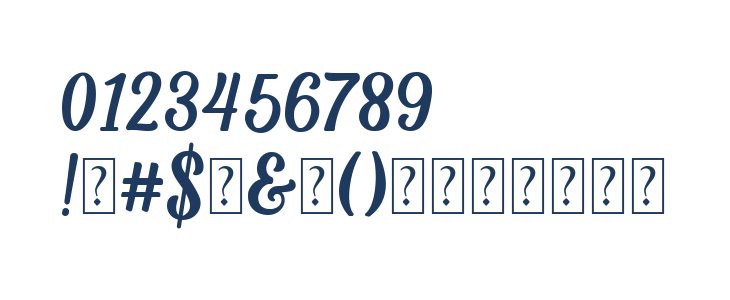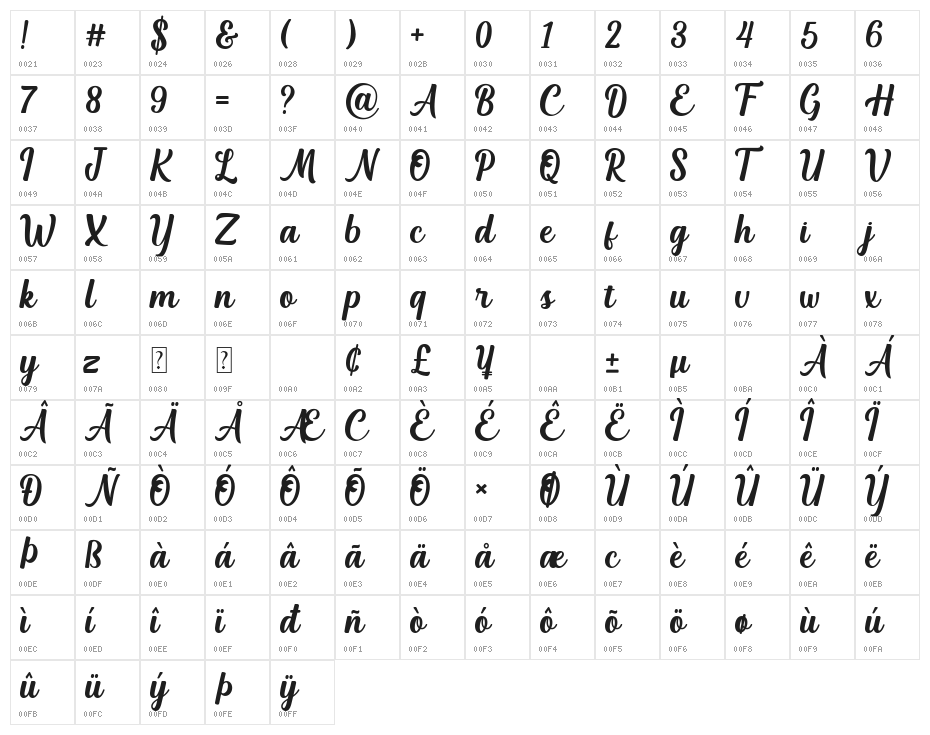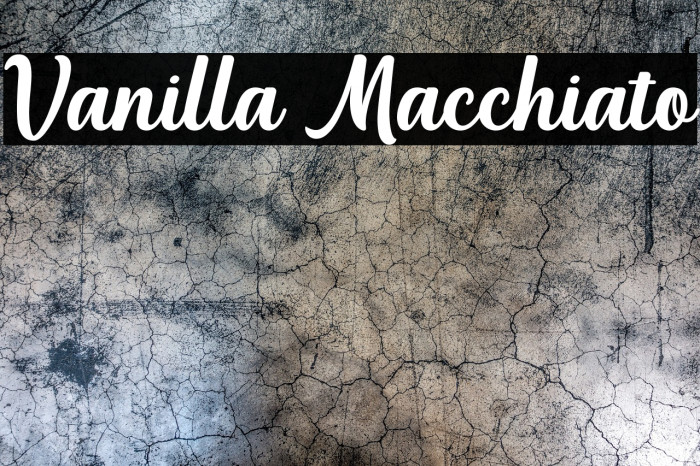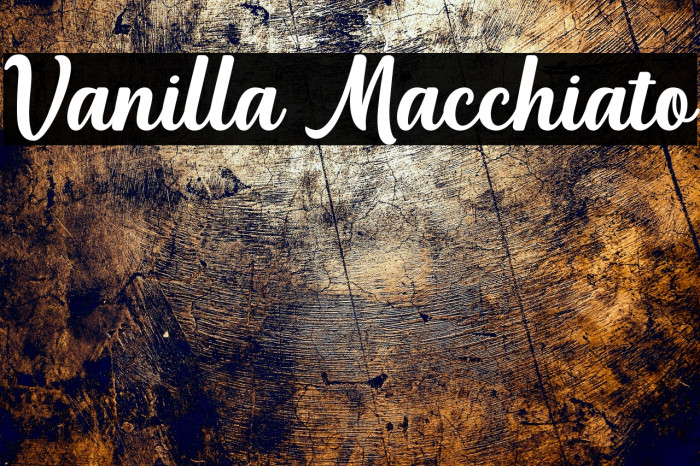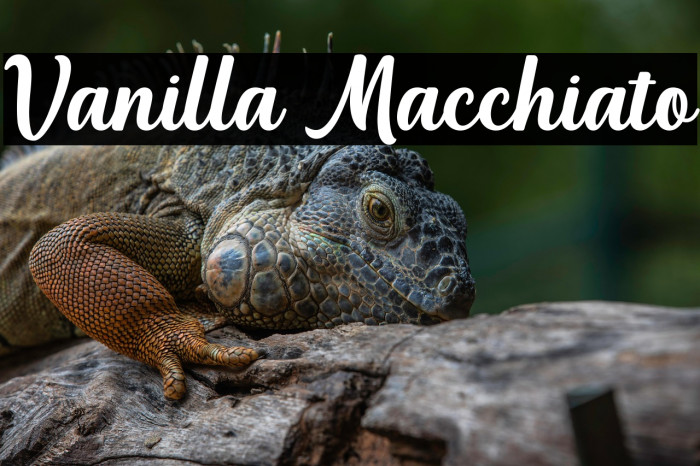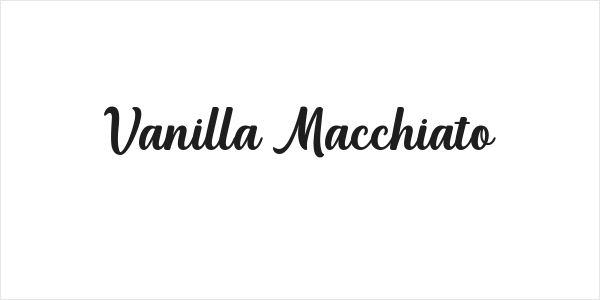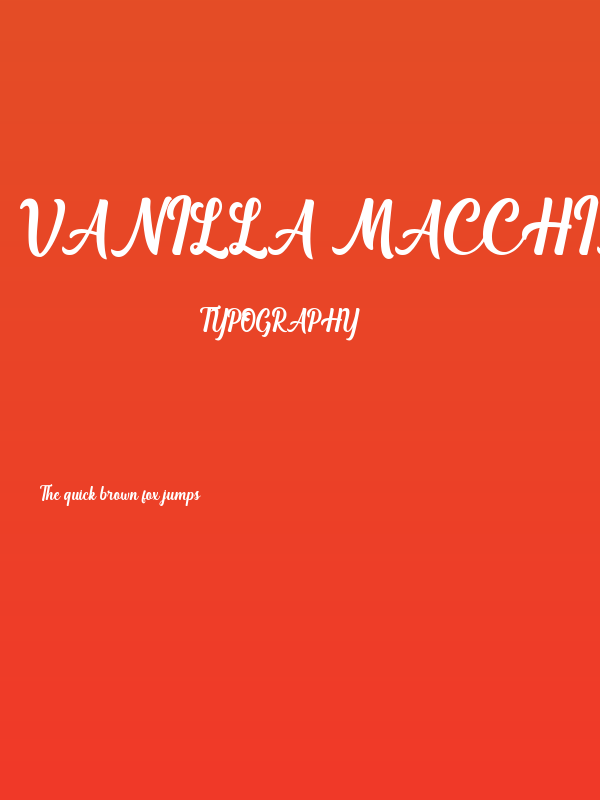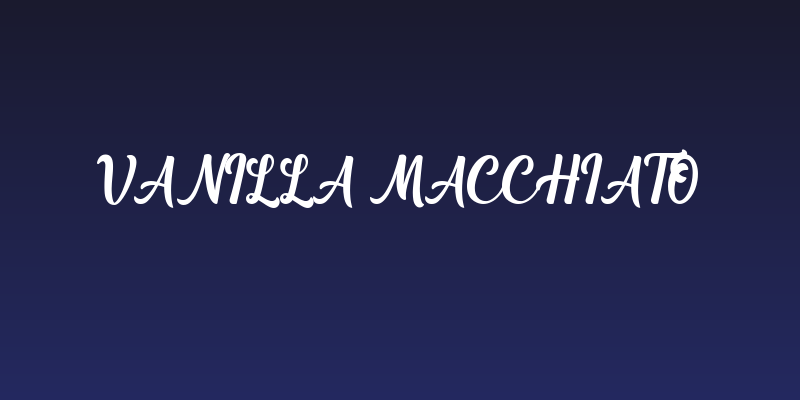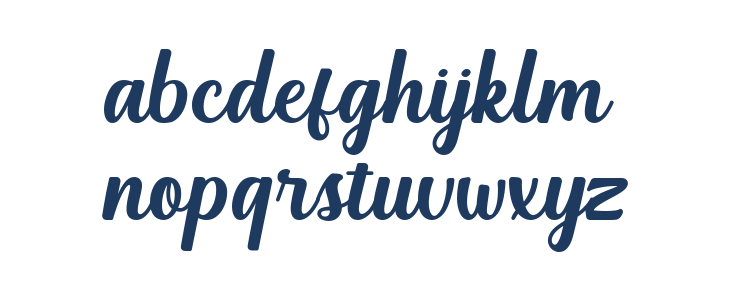
Vanilla Macchiato Font
Vanilla Macchiato Description
This font features a bold and flowing script style, characterized by its smooth, cursive strokes and elegant curves. The uppercase letters are slightly larger and more pronounced, adding a touch of sophistication, while the lowercase letters maintain a consistent flow, enhancing readability. The numerals are well-integrated with the overall design, maintaining the same fluidity and style. Special characters are crafted with the same attention to detail, ensuring they blend seamlessly with the alphabet. This font exudes a sense of elegance and charm, making it suitable for a variety of creative applications.
Overall StyleElegant
Use CaseLogos, Invitations, Branding
Proposed ProjectsIdeal for wedding invitations, branding, logo design, and elegant stationery.